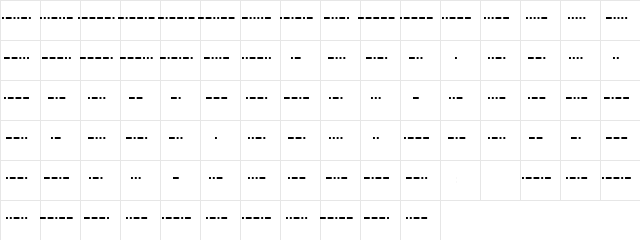
MC morse_International_1890 Regular
Designer: Marek Cerajewski
Design Context for MC morse_International_1890
MC morse_International_1890 is a composed and adaptable typeface that performs quietly and consistently across a wide range of design contexts.